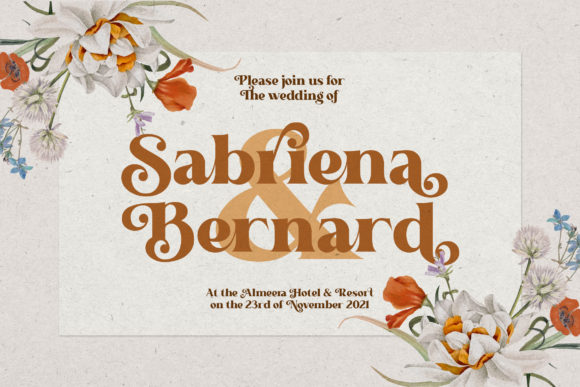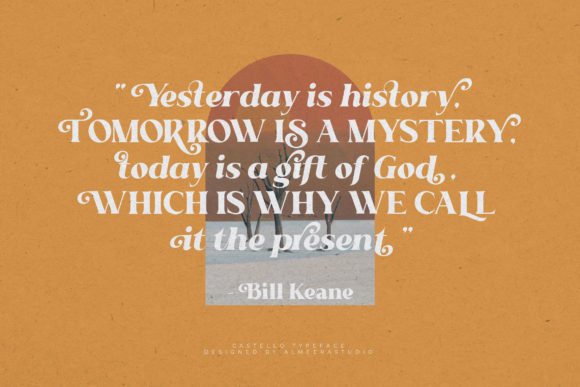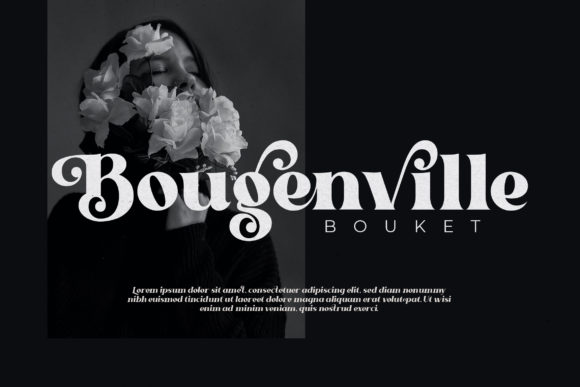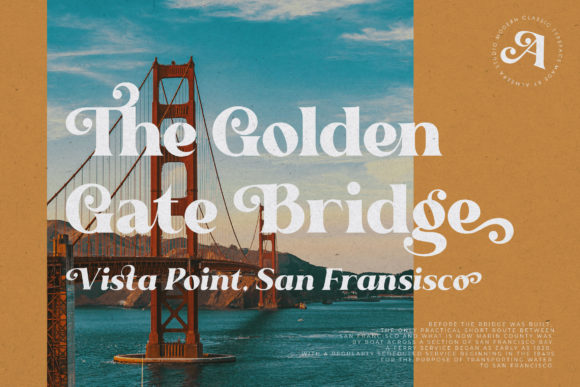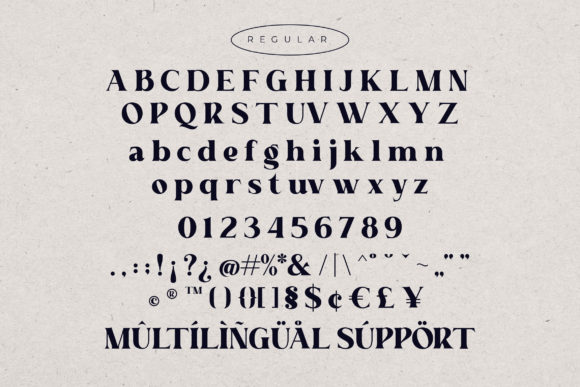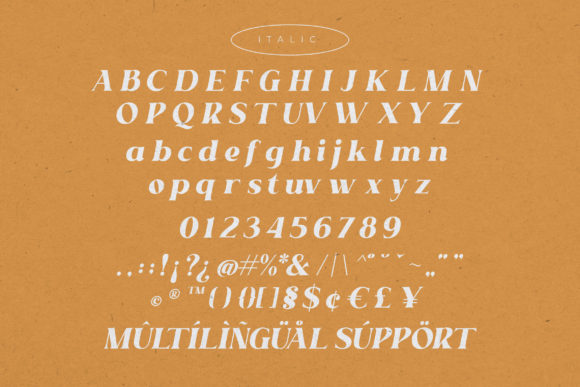
Introducing Castello Font: Elevate Your Designs with Luxury and Sophistication
In the world of typography, fonts play a crucial role in conveying the tone and personality of a design. For designers and crafters looking to add a touch of luxury and sophistication to their projects, Castello Font is an excellent choice. This trendy, cool, and chic serif font is designed to make your designs stand out and leave a lasting impression.
The Luxury Spark You Need
Castello Font is more than just a font – it’s a design statement. With its elegant and refined features, it’s perfect for projects that require a high-end feel. Whether you’re working on a branding project, packaging design, or marketing materials, Castello Font can help you create a cohesive and luxurious visual identity.
The font’s serif design adds a level of sophistication and classic elegance, making it suitable for a wide range of applications, from upscale magazines and editorials to high-end product packaging and advertising campaigns.
Unleash Your Creativity
One of the best things about Castello Font is its versatility. The only limit is your imagination! You can use it to create stunning designs for various mediums, including:
- Branding and logos: Create a lasting impression with a custom logo that exudes luxury and sophistication.
- Packaging design: Elevate your product packaging with a font that screams high-end quality.
- Marketing materials: Make your marketing materials stand out with a font that’s both stylish and elegant.
- Editorials and magazines: Add a touch of luxury to your editorial designs with Castello Font.
Why Choose Castello Font?
So, what sets Castello Font apart from other fonts? Here are a few reasons why designers and crafters love this font:
- Trendy and modern: Castello Font has a fresh and contemporary feel that’s perfect for designs that require a modern twist.
- Cool and chic: The font’s sleek and refined features make it a great choice for designs that need to convey a sense of style and sophistication.
- Serif design: The serif design adds a level of elegance and classic sophistication to your designs.
- Highly versatile: Castello Font can be used for a wide range of applications, from branding and packaging to editorials and marketing materials.
Tips for Using Castello Font
To get the most out of Castello Font, here are a few tips to keep in mind:
- Pair it with a sans-serif font: Combining Castello Font with a sans-serif font can create a beautiful contrast and add visual interest to your designs.
- Experiment with font sizes: Castello Font looks great in various font sizes, from large headings to smaller body text.
- Use it sparingly: While Castello Font is a beautiful font, it’s best to use it sparingly to avoid overwhelming your designs.
Castello Font is a luxury serif font that’s perfect for designers and crafters looking to add a touch of sophistication and elegance to their designs. With its trendy, cool, and chic features, it’s an excellent choice for a wide range of applications. Whether you’re working on a branding project, packaging design, or marketing materials, Castello Font can help you create a cohesive and luxurious visual identity. So why wait? Unleash your creativity and take your designs to the next level with Castello Font!